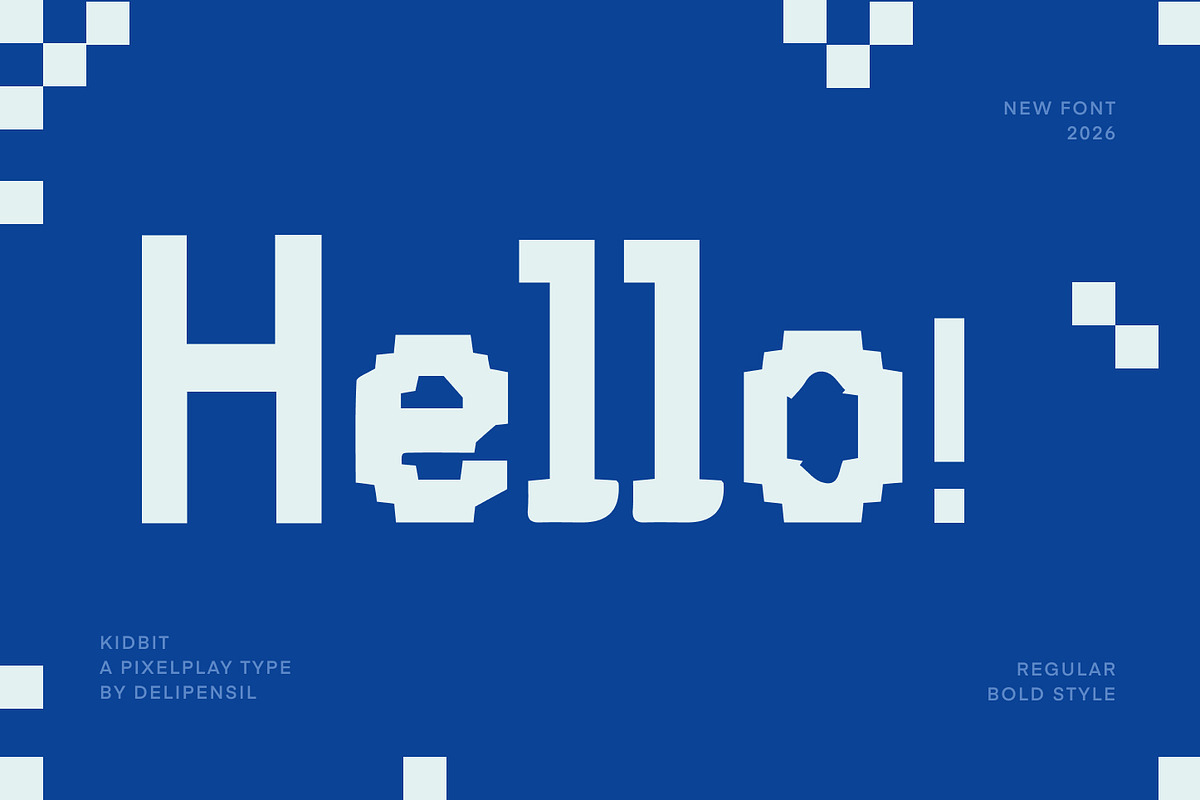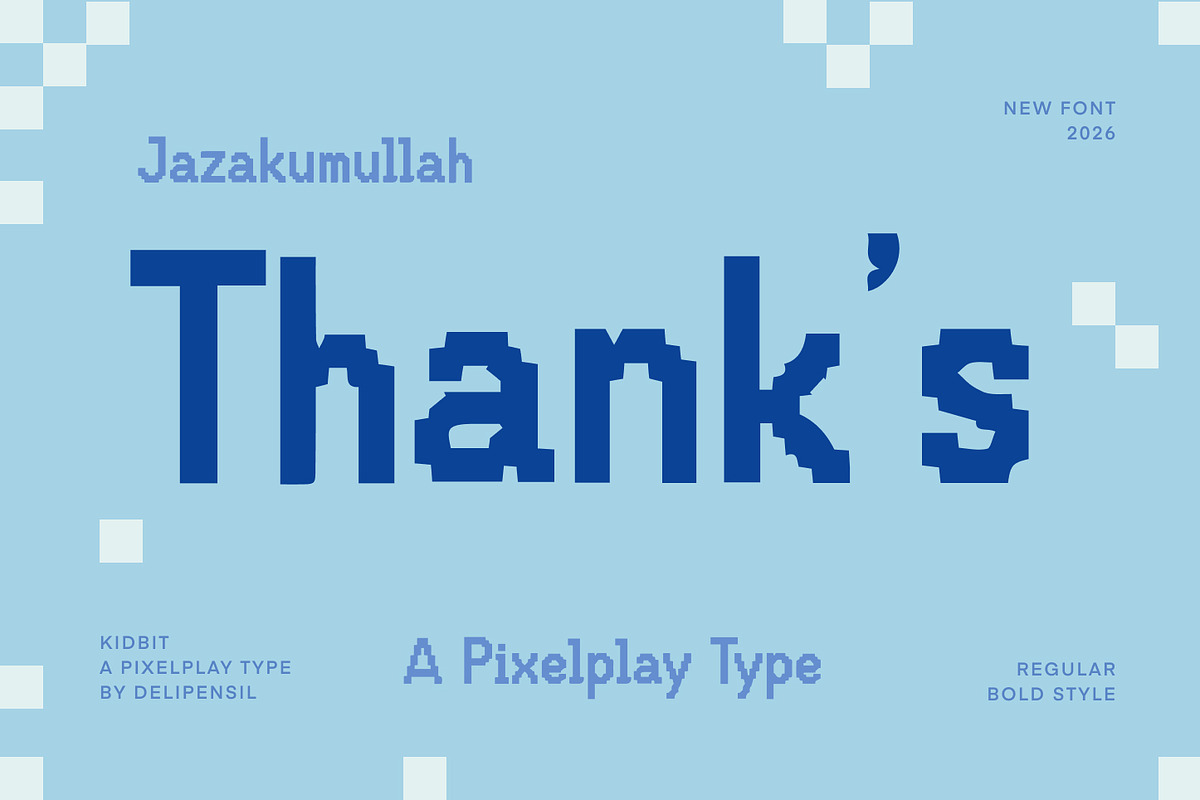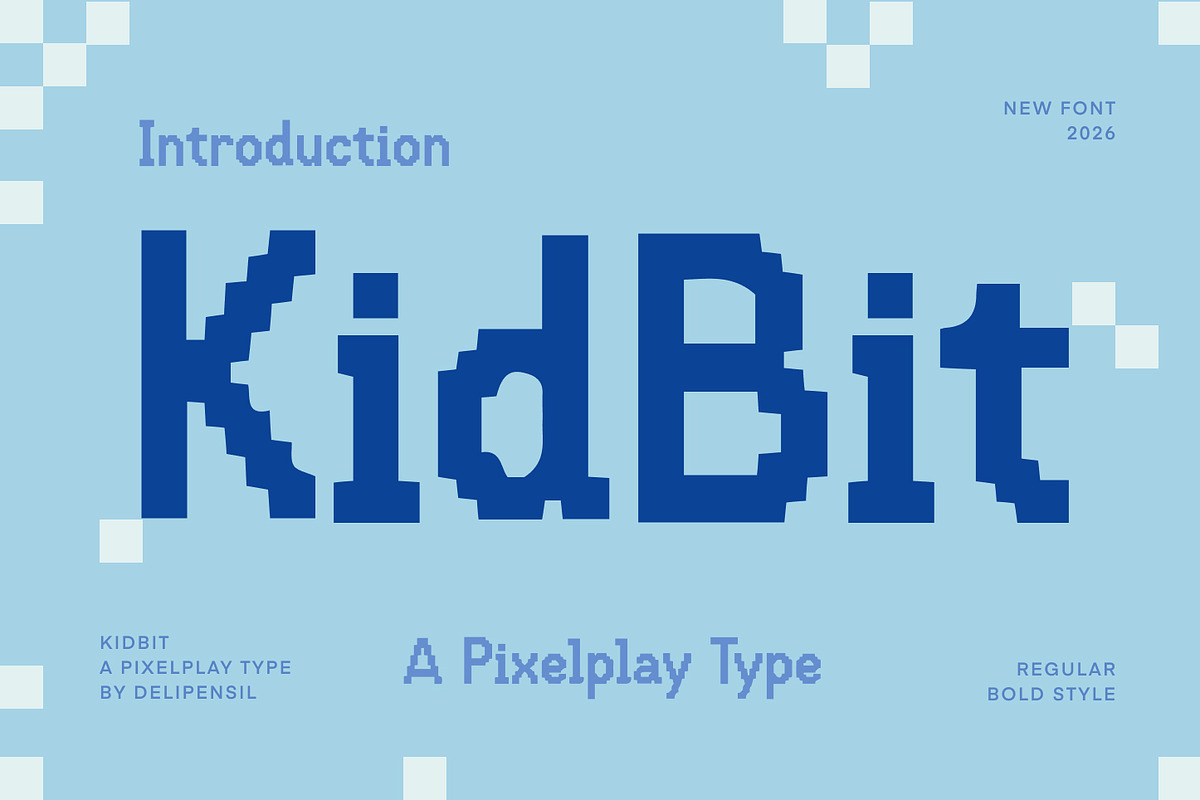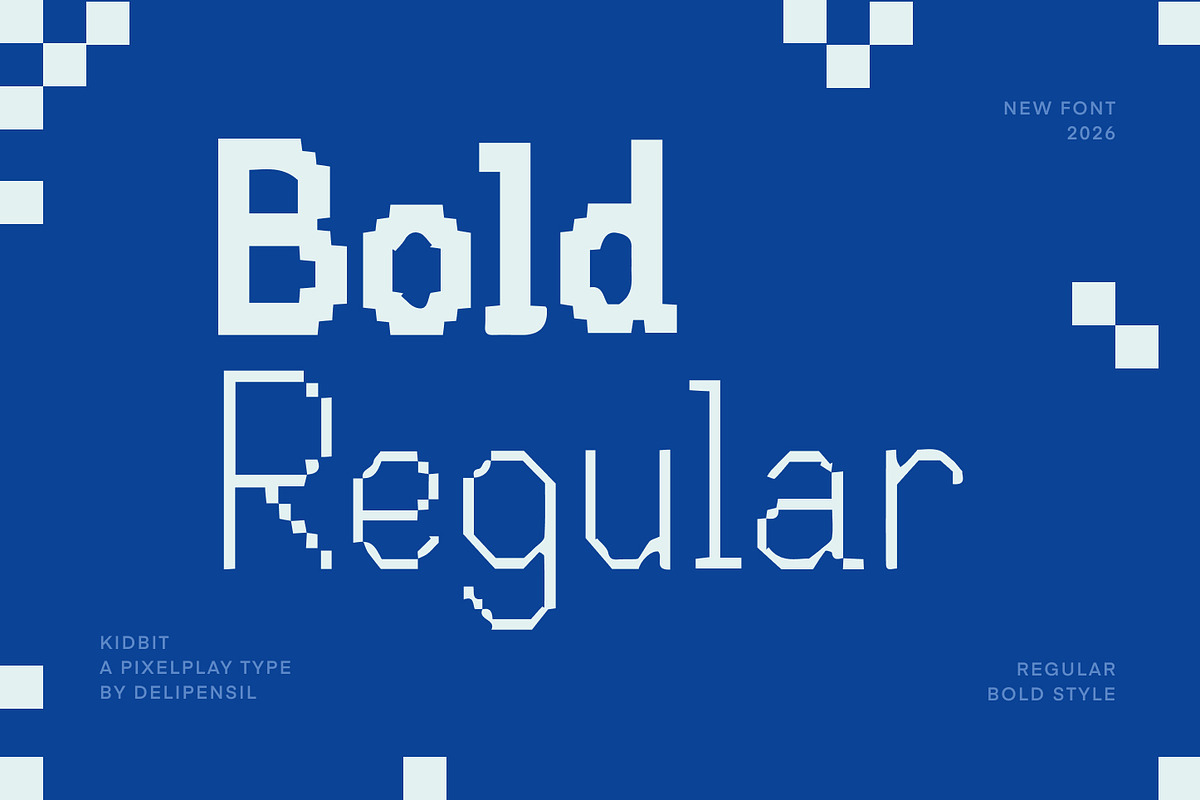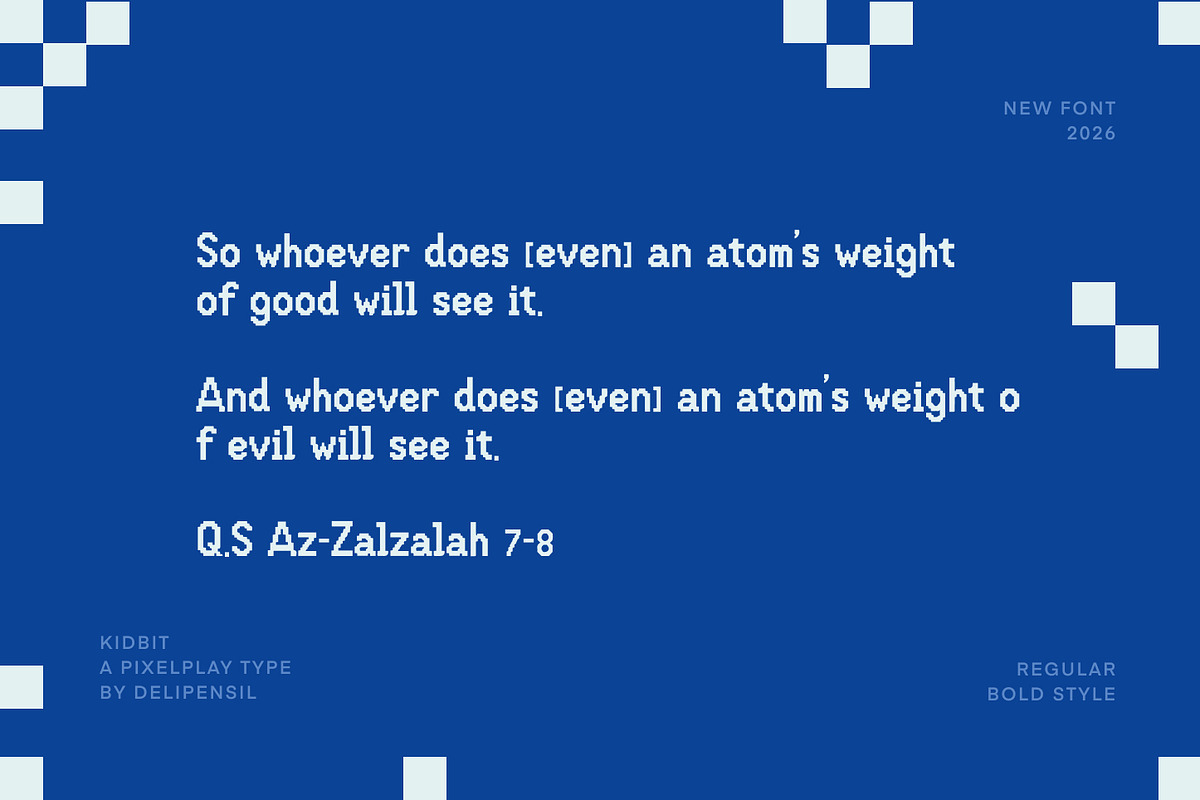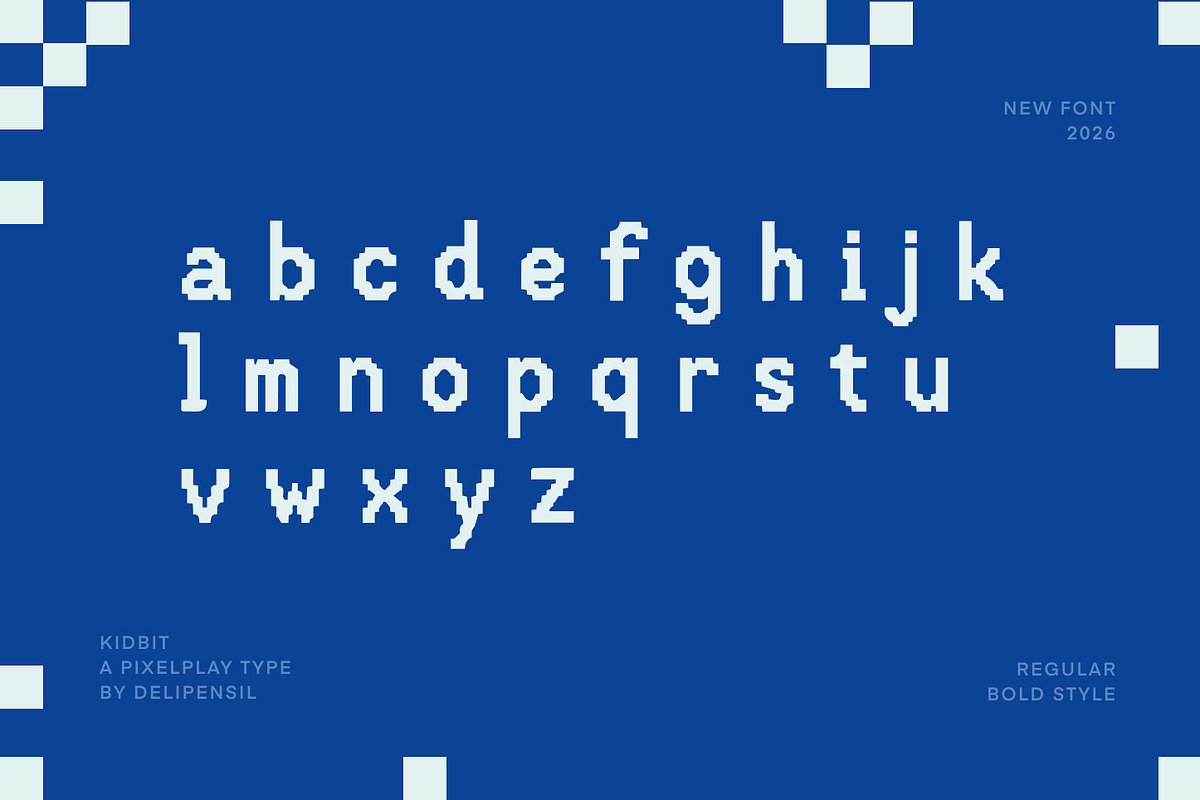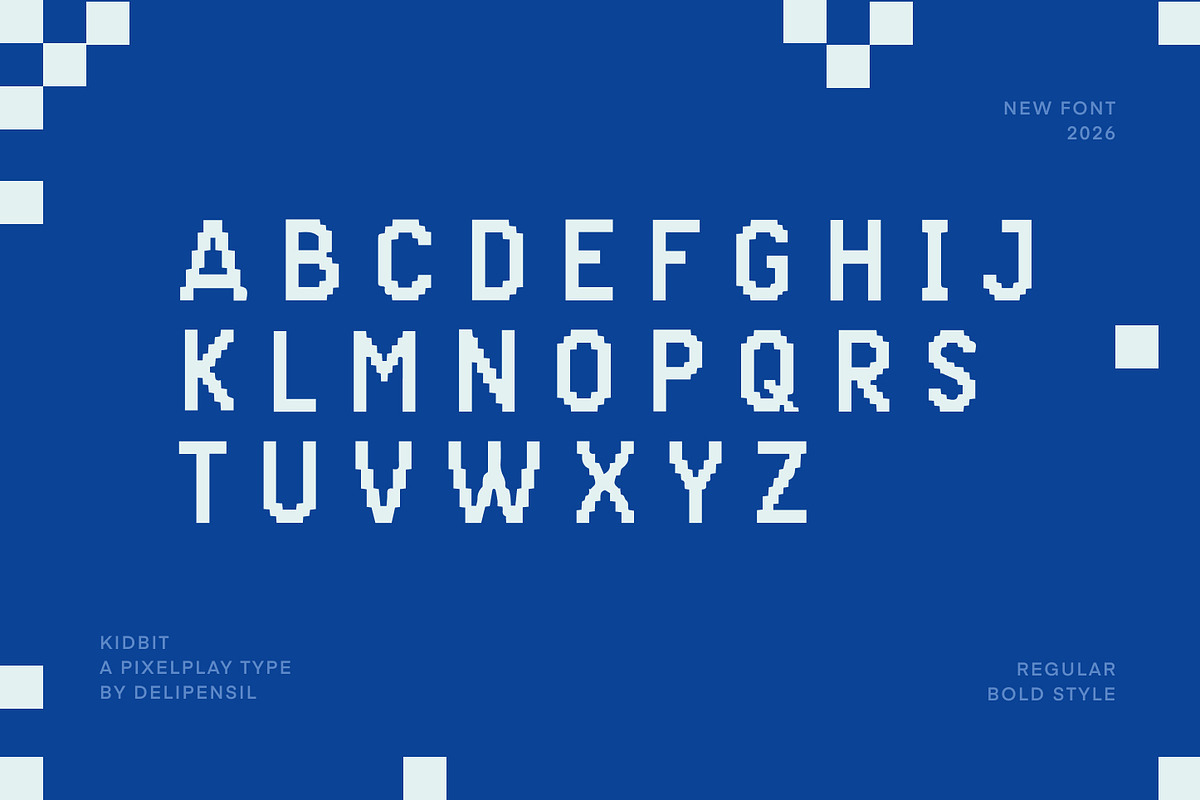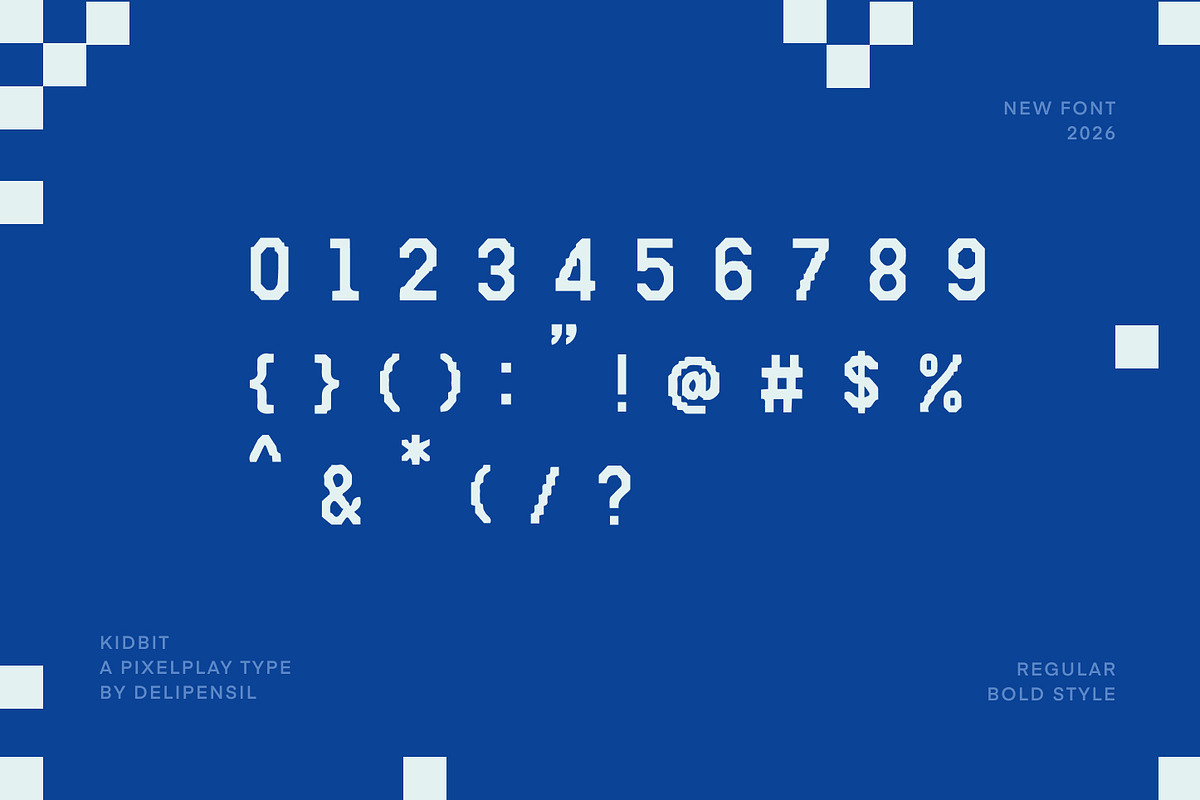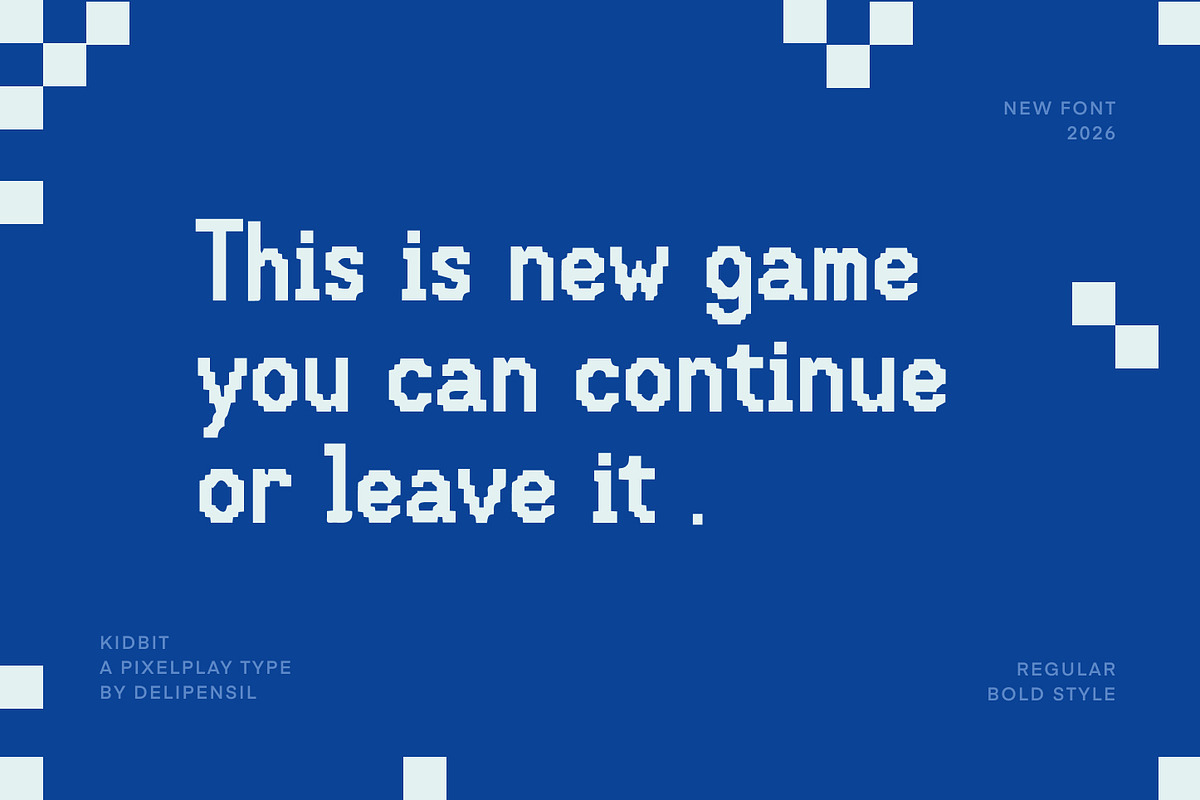
Kidbit - A pixelplay type
Bismillah Introducing ✨ KidBit — A Pixelplay Type ✨ A playful pixel font made for creators who love fun, retro, and game-inspired vibes 🎮🧃
kids branding
game titles
posters
YouTube thumbnails
playful packaging
retro aesthetic projects
Kidbit brings chunky pixel charm with a cute personality that instantly makes designs feel more alive & memorable 💾⚡️